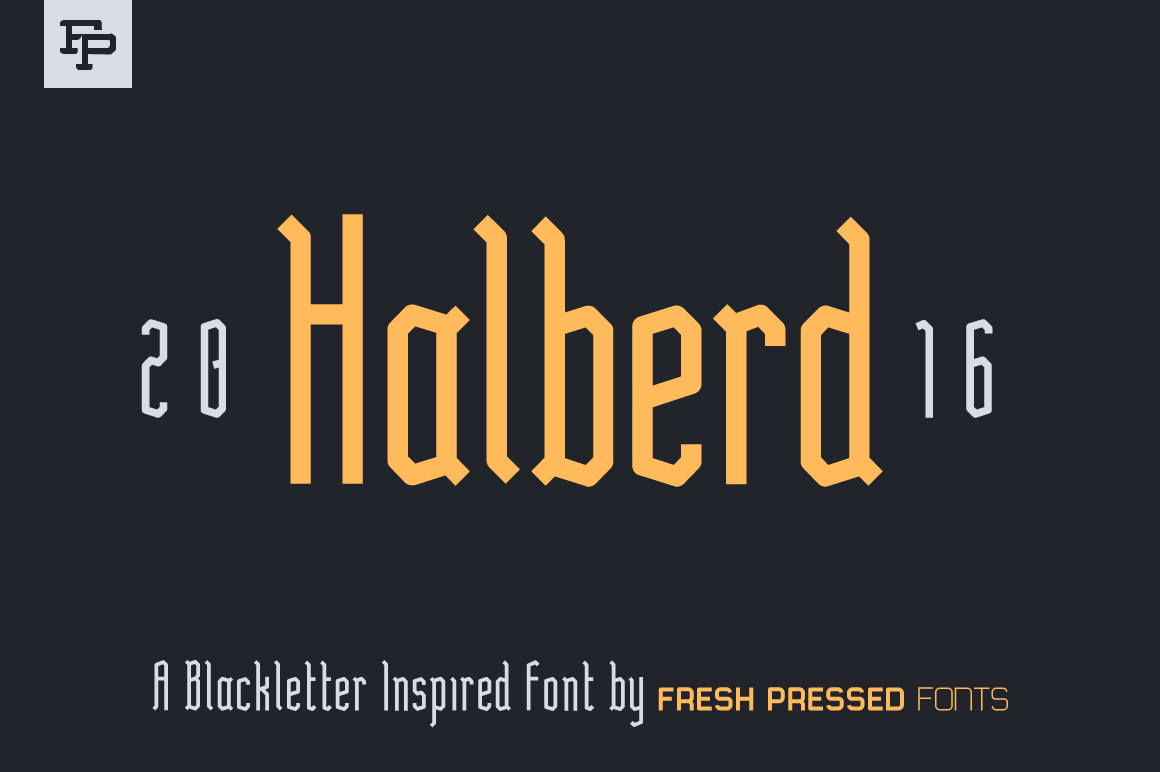
Halberd Display Font
Introducing Halberd! A blackletter inspired typeface with creative adjustments. Halberd brings a modern look to the classic, elegant and vintage feel of blackletter fonts.
With unique uppercase, lowercase, international language support, and plenty of supporting glyphs, Halberd can be used in posters, packaging, flyers, signage, logos and much more!